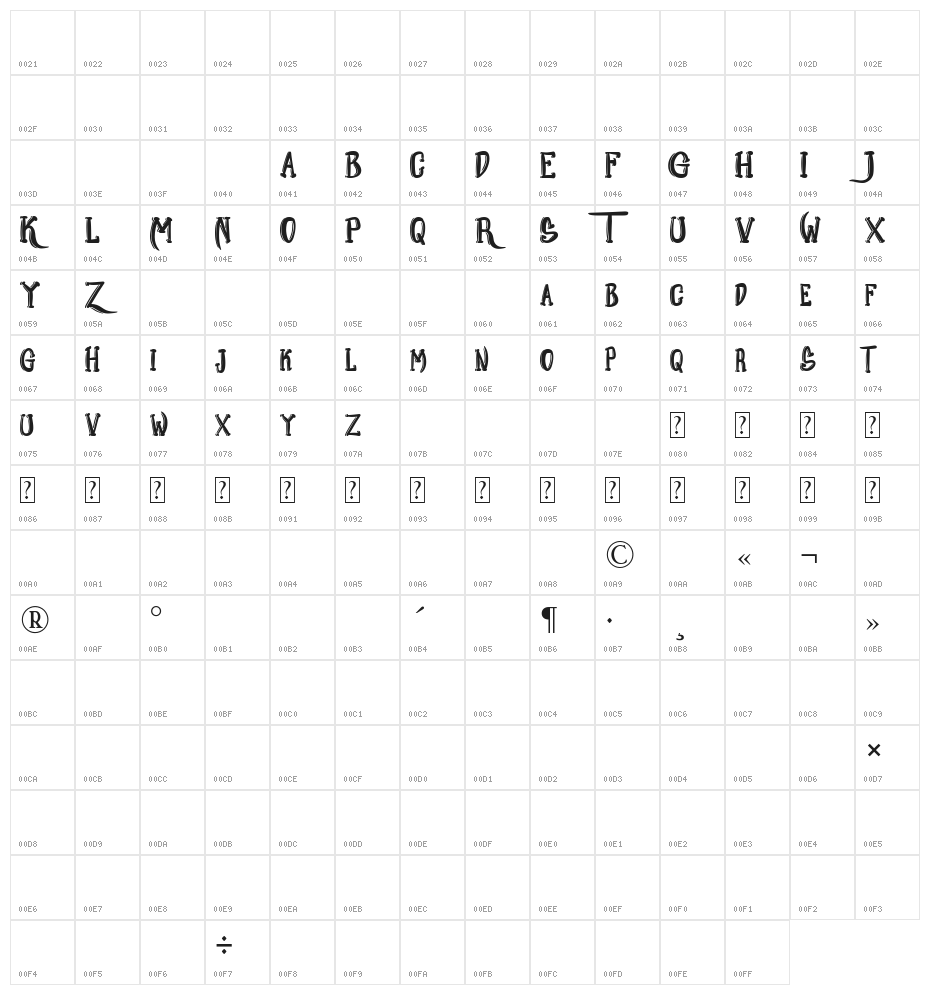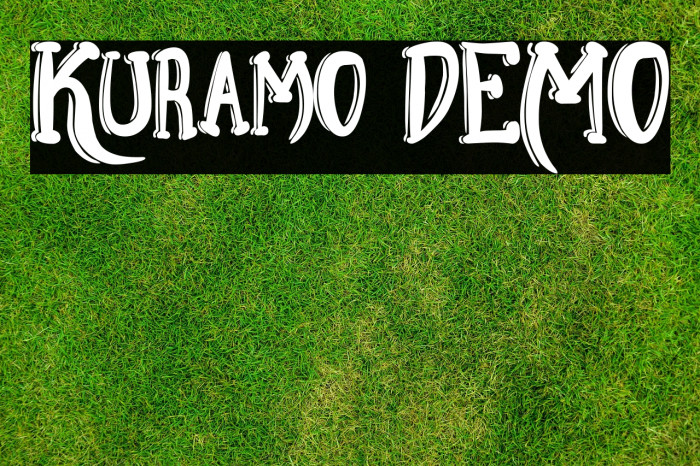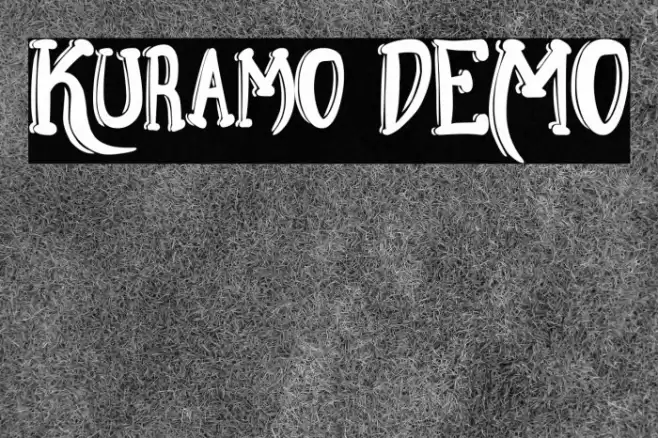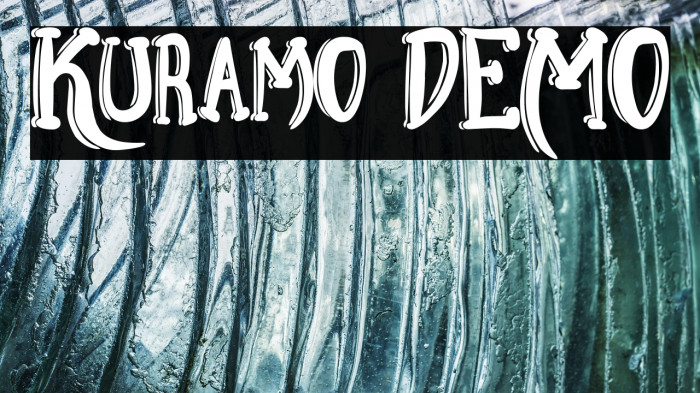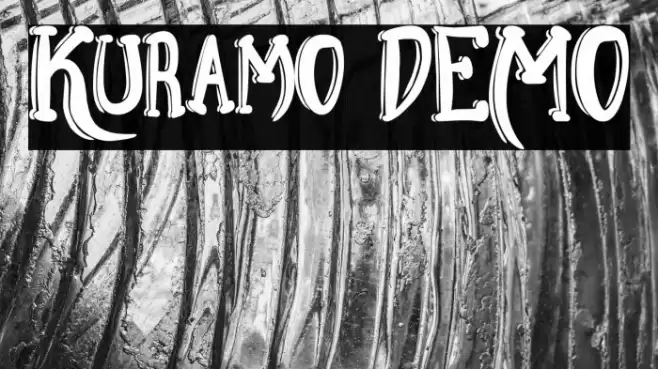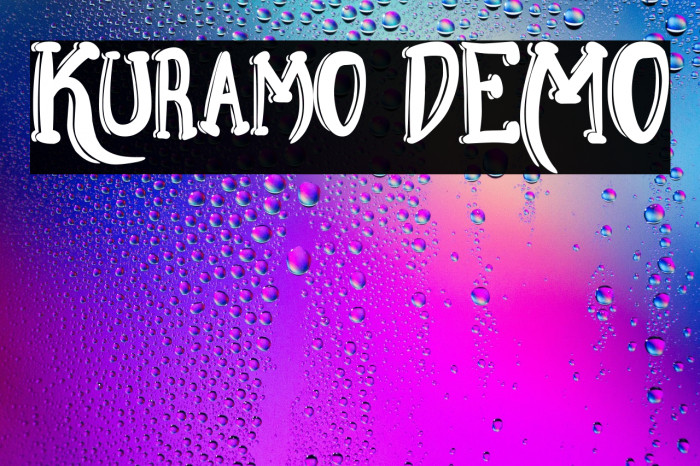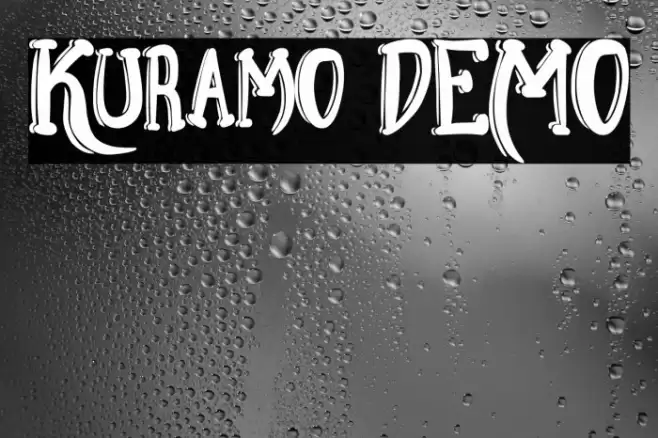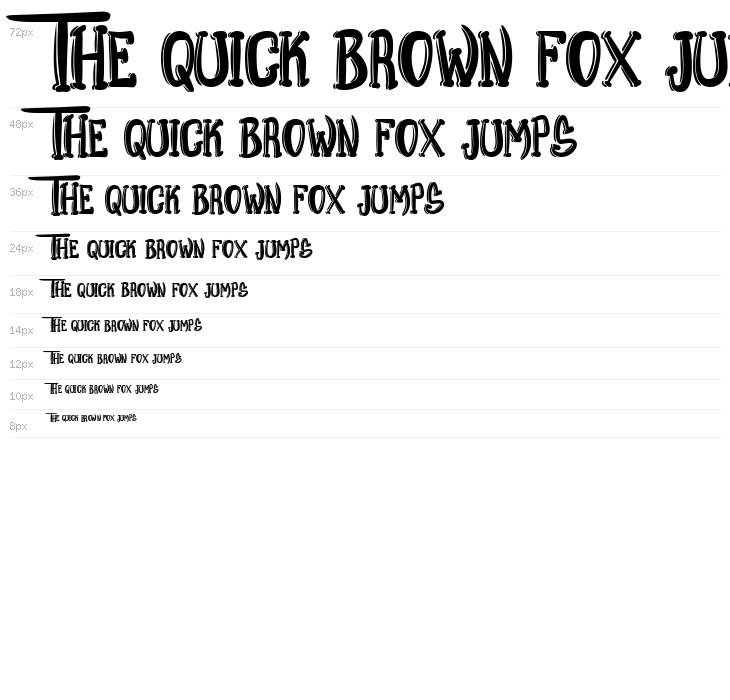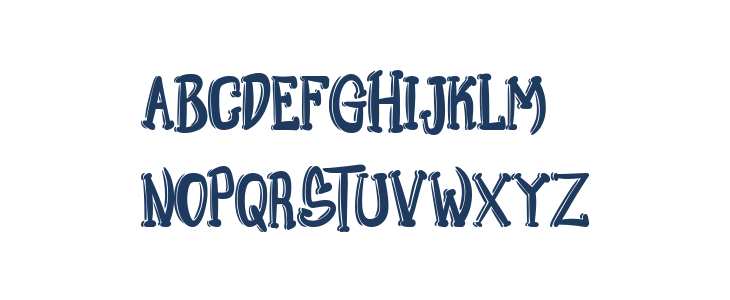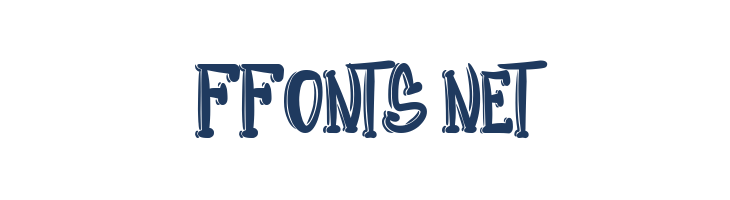
Kuramo DEMO Font
Kuramo DEMO Description
This font features a bold and decorative style with a playful and artistic flair. The characters are uniquely designed with exaggerated serifs and varying stroke widths, giving them a dynamic and eye-catching appearance. The uppercase letters exhibit a strong presence with their thick lines and intricate details, while the lowercase letters maintain a consistent style, ensuring readability. The font's whimsical nature is further enhanced by the creative use of curves and angles, making it ideal for projects that require a touch of creativity and fun. The overall design is both modern and vintage, combining classic elements with contemporary aesthetics.
| Overall Style | Modern, Vintage |
| Proposed Projects | Ideal for posters, logos, branding, and any project needing a creative and bold statement. |